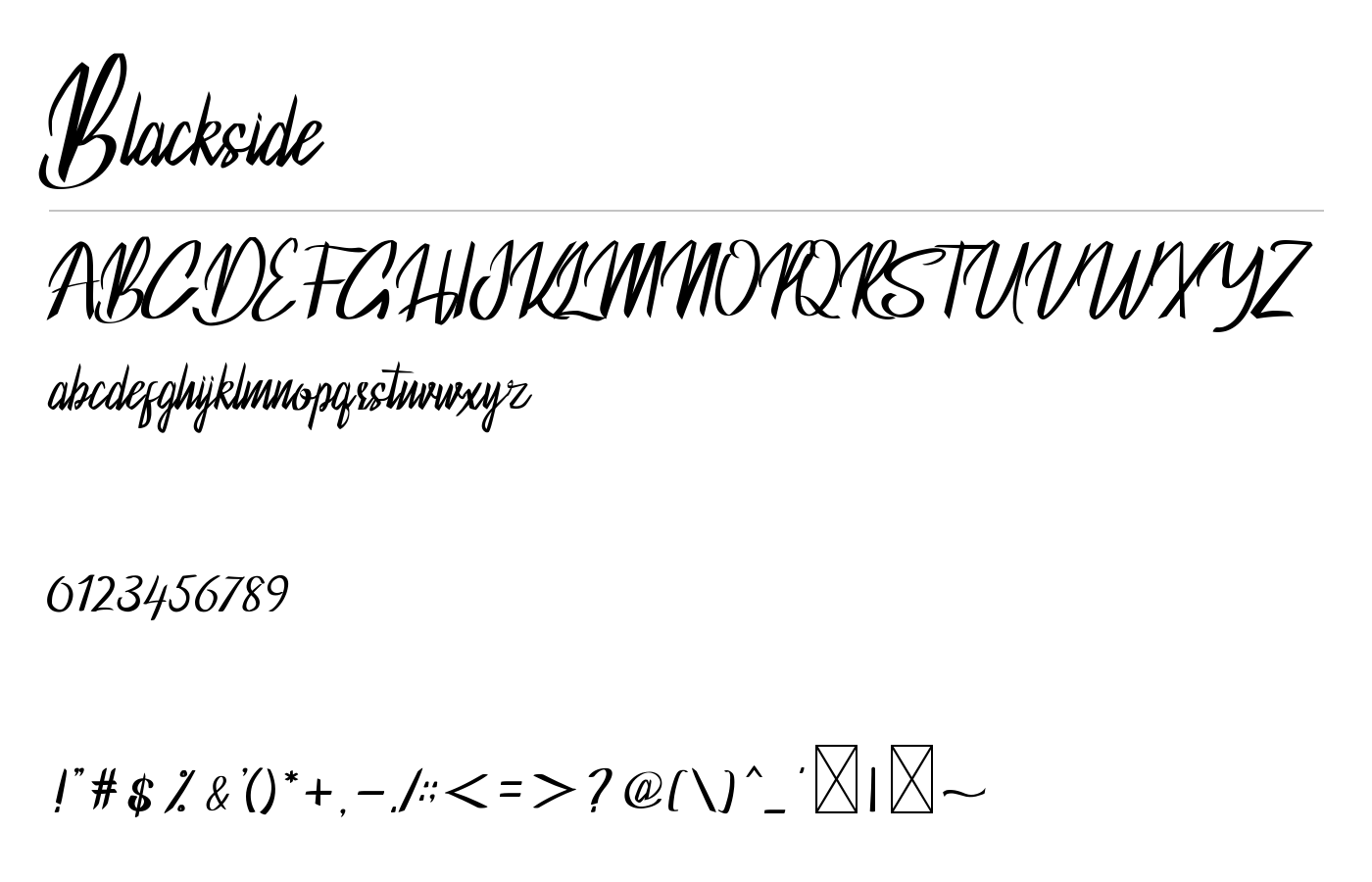
Blackside is a bold, elegant script font characterized by its fluid, hand-drawn style with high contrast strokes and a slightly condensed, tall x-height. Its flowing letterforms convey a sense of sophistication and creativity, making it ideal for fashion branding, luxury invitations, and stylish headlines where a personal, artistic touch is desired. This font works best in large display settings, capturing attention with its graceful yet dynamic flair.
Blackside Font
About Blackside Font
| Font family | Blackside Font |
| Designer | Bima Prayansyah |
| Trademark | Rayn Studio |